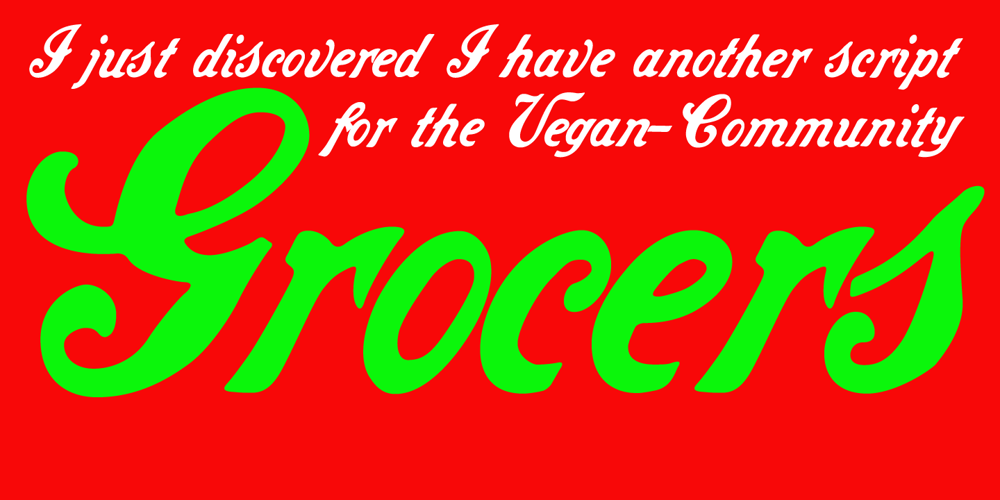
Grocers Script Font Family was designed by Gert Wiescher and published by Wiescher Design. Grocers Script contains 1 styles and family package options. I discovered GrocersScript on the market Cours Saleya in Nice. I always buy my foodstuff there when I am in the area. I developed the whole font from some fragments. If you ever come to Nice, you must absolutely visit that market as well as the one in Cannes. Yours very hungry Gert Wiescher